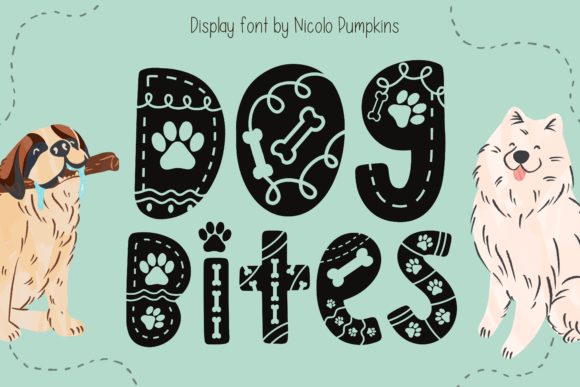
Introducing Dog Bites Font, the ultimate choice for adding a touch of cuteness and friendliness to your designs! Created by the talented Nicolo Pumpkins, this captivating display font is specifically designed with dog lovers in mind. Whether you're a professional designer or simply someone who appreciates adorable dog-themed creations, Dog Bites is the perfect addition to your font collection.
With its playful and charming aesthetic, Dog Bites Font is ideal for a wide range of creative projects. Imagine the joy of designing t-shirts that feature heartwarming dog illustrations, or tote bags adorned with lovable paw prints. This font will effortlessly elevate your designs, making them truly eye-catching and unforgettable.
Are you planning a dog-themed wedding? Look no further! Dog Bites Font can bring a whimsical touch to your wedding invitations, place cards, and even the wedding favors. Let your guests be enchanted by the delightful dog-inspired typography that adds a unique and personal touch to your special day.
But it doesn't stop there! Dog Bites Font is perfect for creating captivating logos that will leave a lasting impression on your audience. Whether you run a pet-related business, a dog grooming salon, or a doggy daycare, this font will help you establish a brand identity that is both playful and professional.
Looking to add a touch of warmth and charm to your greeting cards or inspirational quotes? Dog Bites Font is here to make your words truly come alive. With its friendly and approachable style, this font will evoke emotions of love, joy, and happiness in anyone who reads it.
But why stop at just these examples? Dog Bites Font is incredibly versatile and can be used to enhance various creative projects. Its adaptability allows you to explore endless possibilities, unleashing your imagination and bringing your ideas to life.